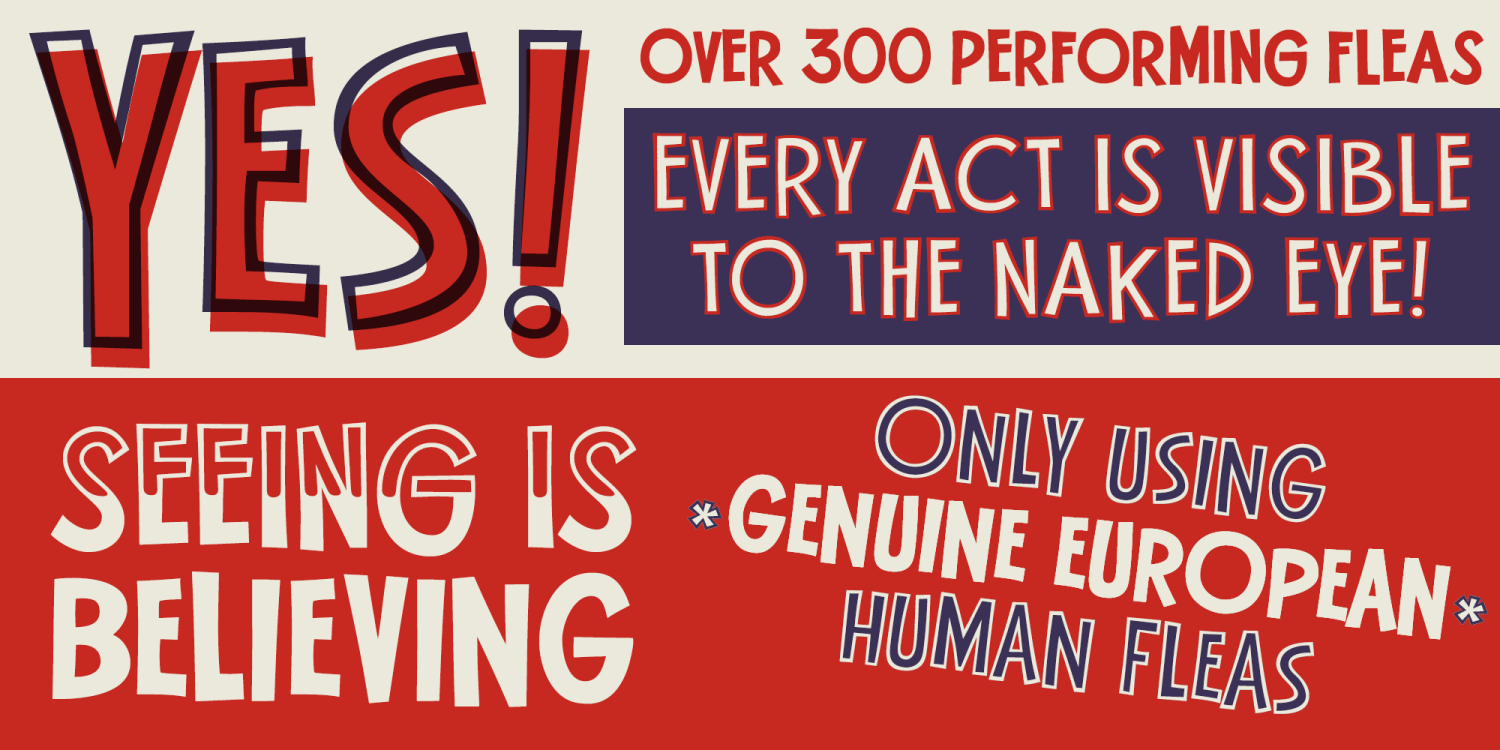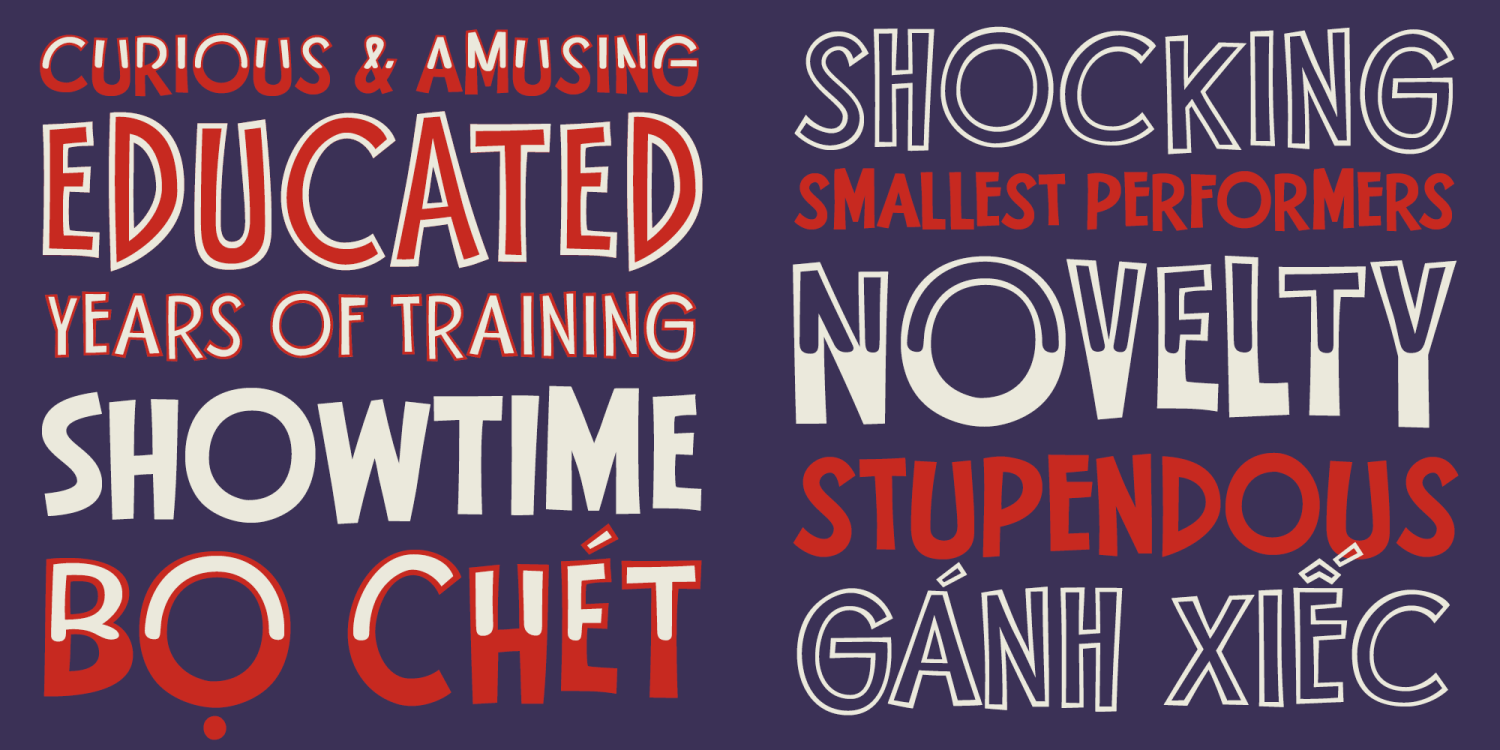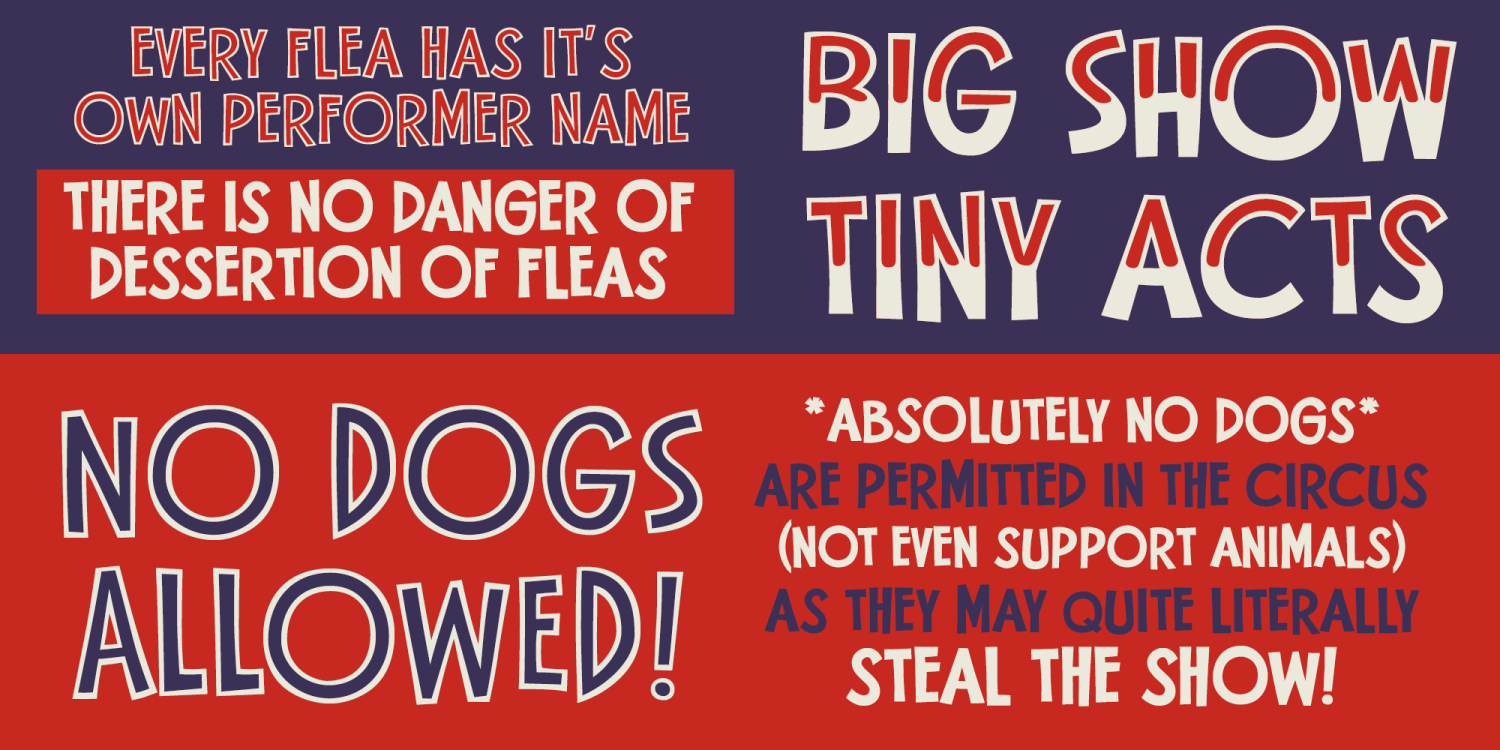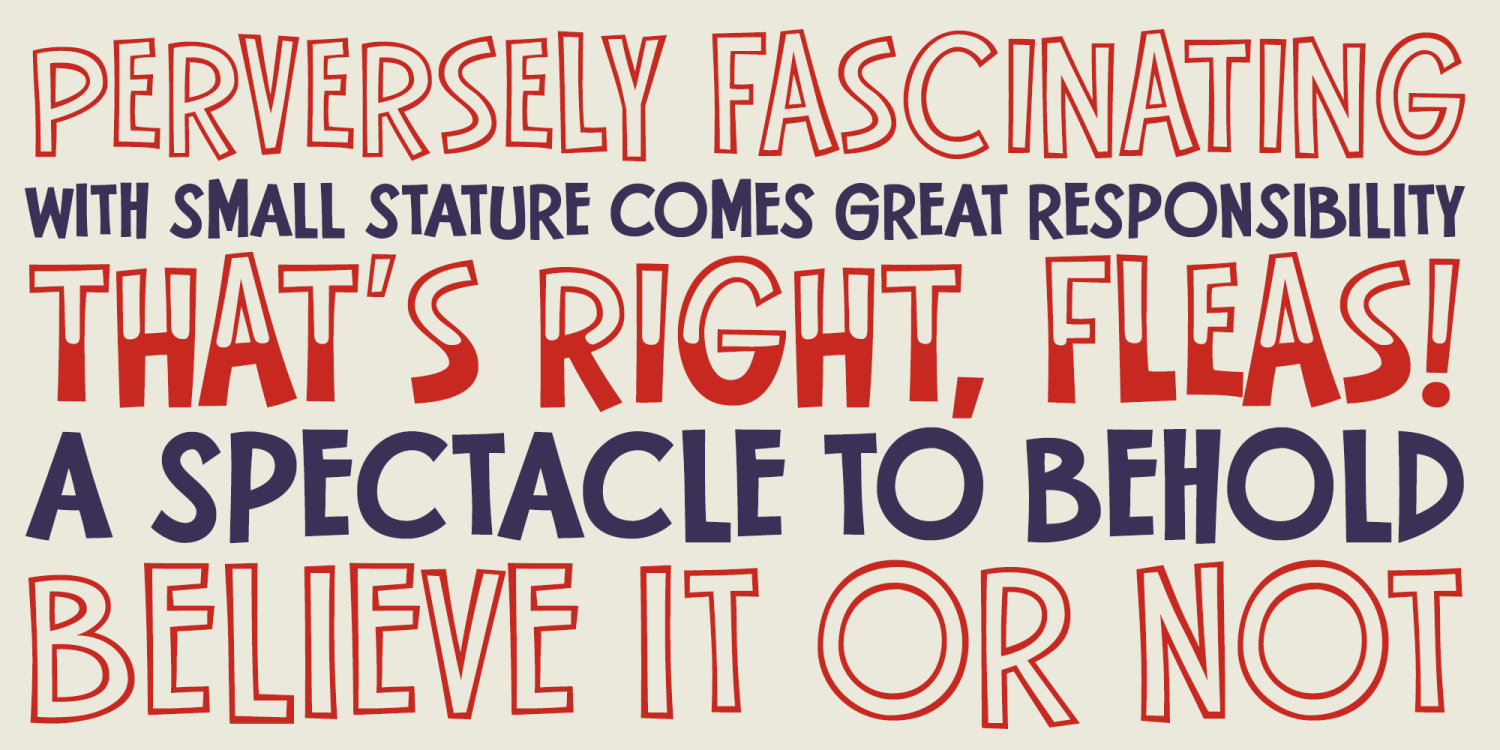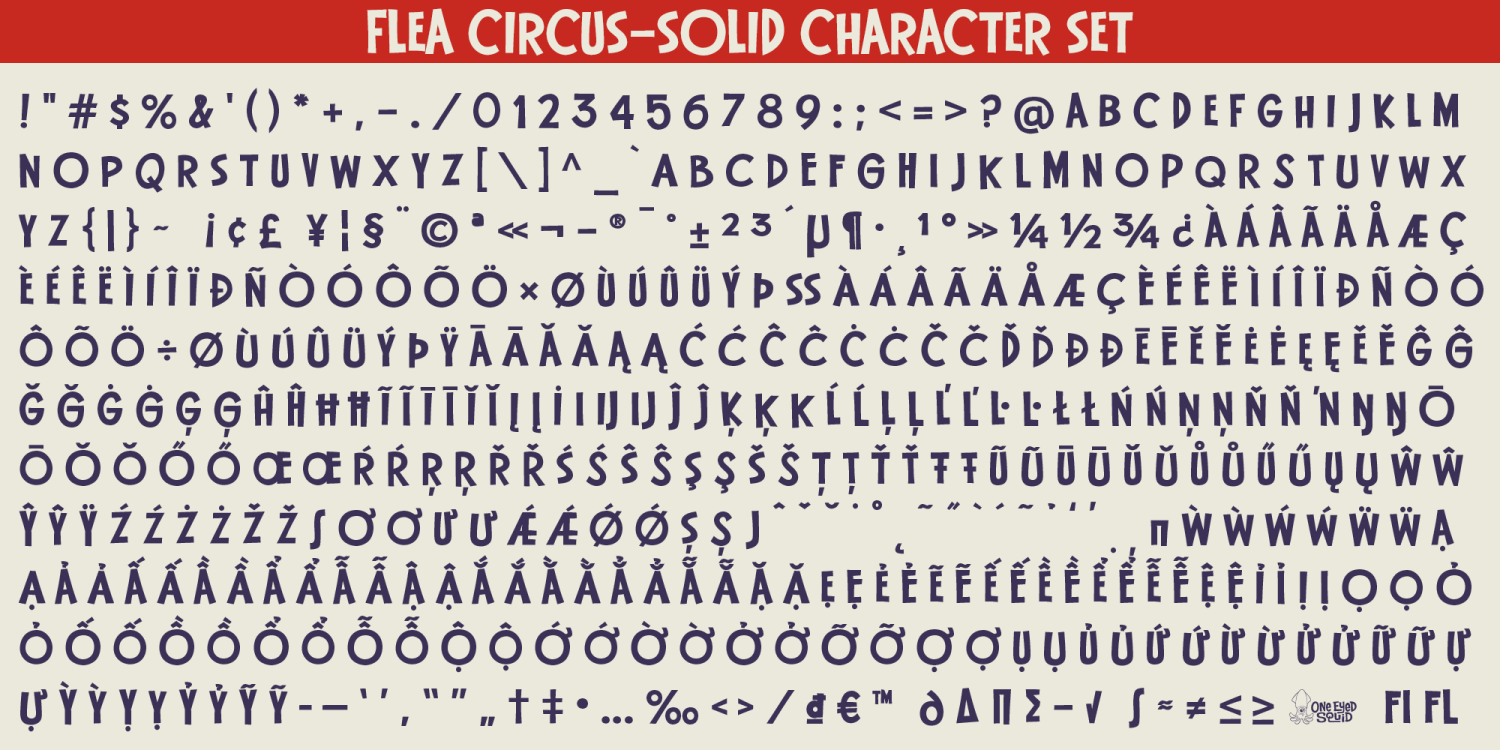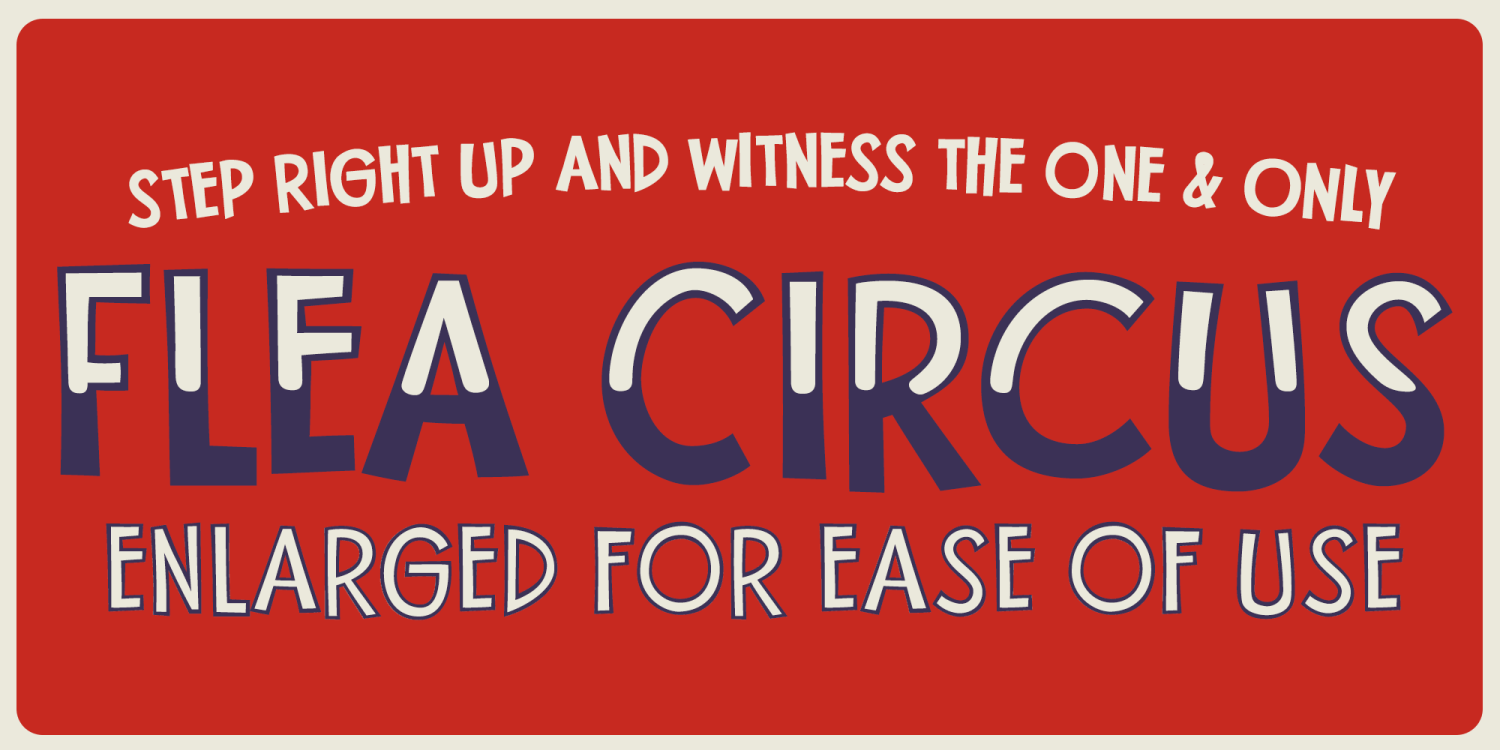
Step right up to the tiny typographical tent and be stupefied by Flea Circus! Don’t fret its minute origin for we here at One Eyed Squid have expertly enlarged it to be visible to the naked eye. Layer the Fill variation over Solid, of the Regular…